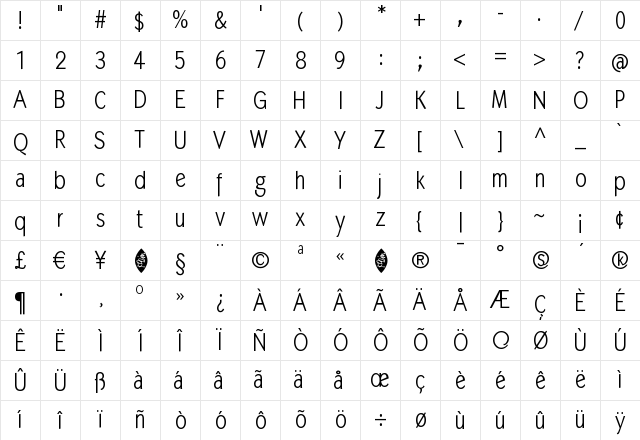
MKAbel Regular
Design Context for MKAbel
MKAbel is a composed and adaptable typeface that performs quietly and consistently across a wide range of design contexts.